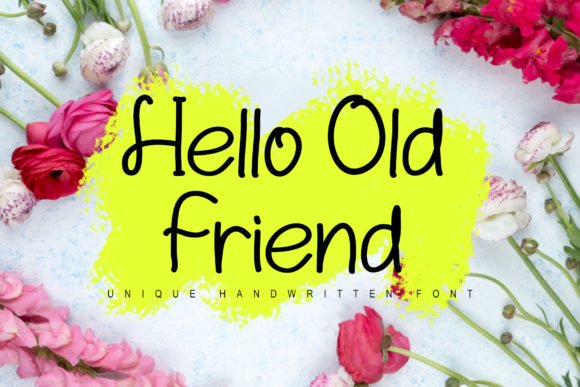
As designers, we’ve all had those moments when we stumble upon a font that makes our hearts skip a beat. For me, it was the first time I laid eyes on the Hello Old Friend Font – its elegant script and handwritten charm had me hooked. I couldn’t wait to experiment with it and see what kind of magic I could create.
This beautiful font is perfect for designers looking to add a touch of whimsy and sophistication to their projects. With its incredibly versatile style, Hello Old Friend Font can be used to create stunning wedding invitations, heartfelt thank you cards, and even eye-catching logos. Whether you’re working on a personal or professional project, this font is sure to bring a smile to your face and make your designs stand out.
Hello Old Friend Font Key Features
- Size: The font family includes 6 styles: Thin, Light, Regular, Medium, Bold, and Black, offering a range of weights to suit various design needs.
- Resolution: Hello Old Friend Font is designed to be highly legible at various resolutions, including screen resolutions and print resolutions, ensuring it looks great in both digital and physical applications.
- Unique Characteristics: This font features a friendly, approachable feel with subtle rounded edges and a warm, inviting aesthetic, making it perfect for use in branding, advertising, and editorial design.
- Kerning and Glyphs: The font includes advanced kerning and a comprehensive set of glyphs, ensuring that text sets and logos look polished and professional.
Hello Old Friend Font Review
Overall, I’m a big fan of the Hello Old Friend Font! ✨ It’s a beautiful, classic script font that’s perfect for those looking for a warm and inviting feel. It’s great for use in various contexts, from headings to body text, and even for logotypes.
- Expressive and Elegant – The font features a beautiful, flowing design that’s both expressive and elegant. It’s perfect for creating a sense of sophistication and refinement.
- Highly Versatile – As I mentioned earlier, the font is highly versatile and can be used in a variety of contexts, from print to digital media.
- Easy to Read – The font is also very easy to read, even at smaller font sizes, making it perfect for use in body text.
However, I do have a few limitations to mention: ⚠️
- Lack of Bold Weights – While the font does come with some bold weights, it’s not as extensive as I would like. It would be great to see more options in the future.
- May Not Be Suitable for All Contexts – As a script font, Hello Old Friend may not be suitable for all contexts. It may not be the best choice for use in sans-serif or modern designs.
Overall, I would highly recommend the Hello Old Friend Font for anyone looking for a beautiful, classic script font. It’s a great choice for those looking to add a touch of elegance and sophistication to their designs.
The “Hello Old Friend Font” is ideal for:
- Creating a vintage or retro-themed design.
- Adding a unique touch to invitations, posters, or flyers.
- Designing a custom logo or branding materials.
To get the most out of the “Hello Old Friend Font”, consider the following tips:
- Pair it with complementary fonts for a balanced look.
- Use it in a larger font size to make a statement.
Compared to Hello Old Friend Font, Playfair Display has a more refined and sophisticated feel, making it better suited for formal or high-end applications. While Hello Old Friend Font has a more rustic, vintage feel, Playfair Display is more polished and refined.
Q: What are the technical specifications of the Hello Old Friend Font?
The Hello Old Friend Font has a x-height of 500 units, an ascender height of 700 units, and a descender height of 300 units. It supports a wide range of font sizes, from 8pt to 144pt, and has a maximum width of 1000 units.